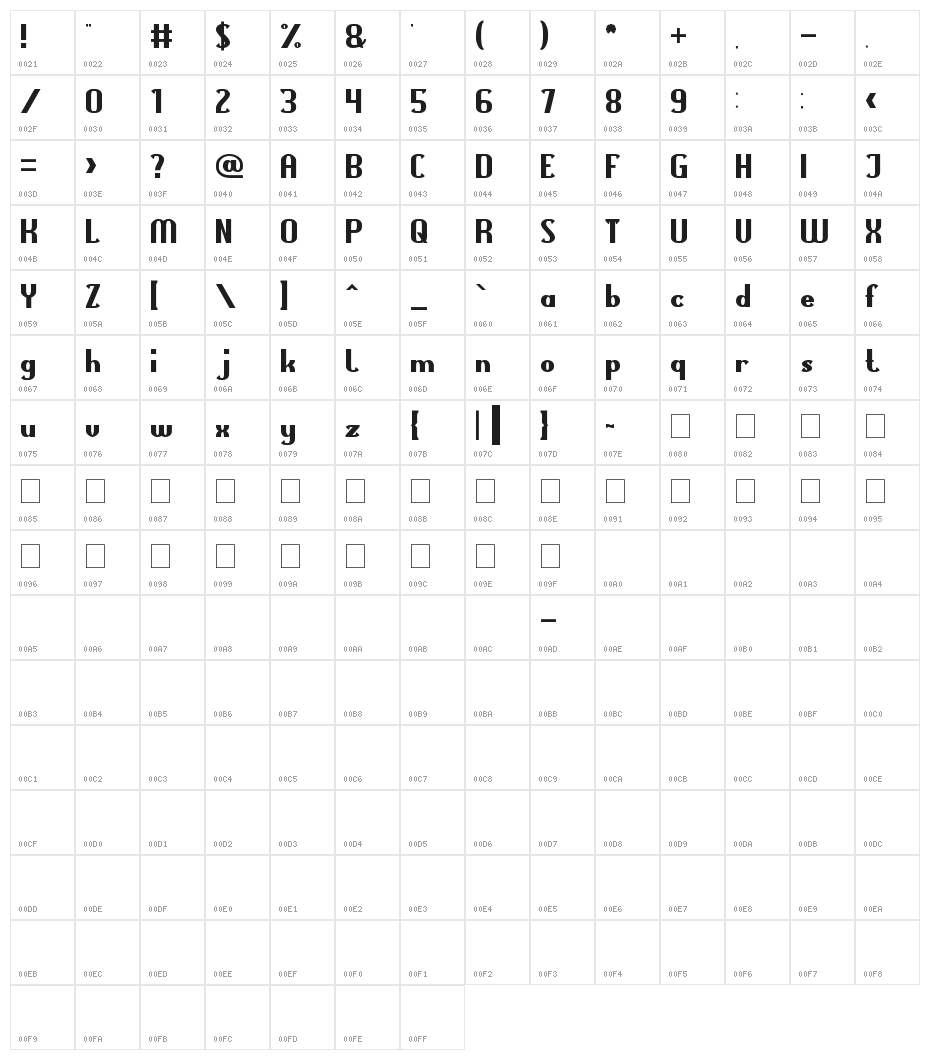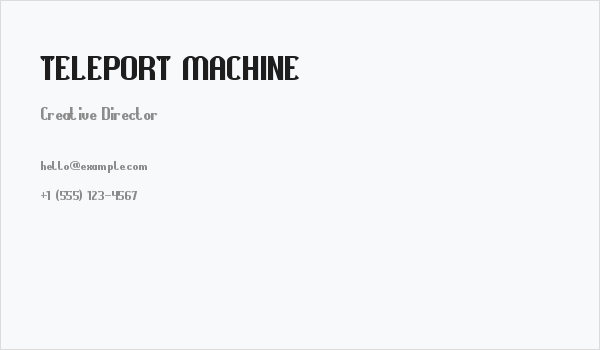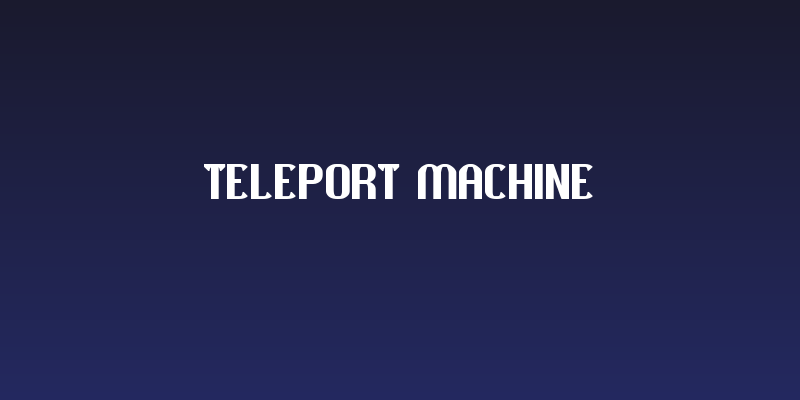
TELEPORT MACHINE Font
TELEPORT MACHINE Description
This font features a bold and striking design with a modern flair. The uppercase letters are tall and narrow, with a unique curvature that adds a sense of movement and dynamism. The lowercase letters maintain a consistent style, offering a balanced and cohesive look. The numerals are equally bold, ensuring readability and impact. Special characters are designed with the same attention to detail, making this font versatile for various uses. Its strong presence makes it ideal for headlines and display purposes, while its modern aesthetic lends itself well to contemporary design projects.